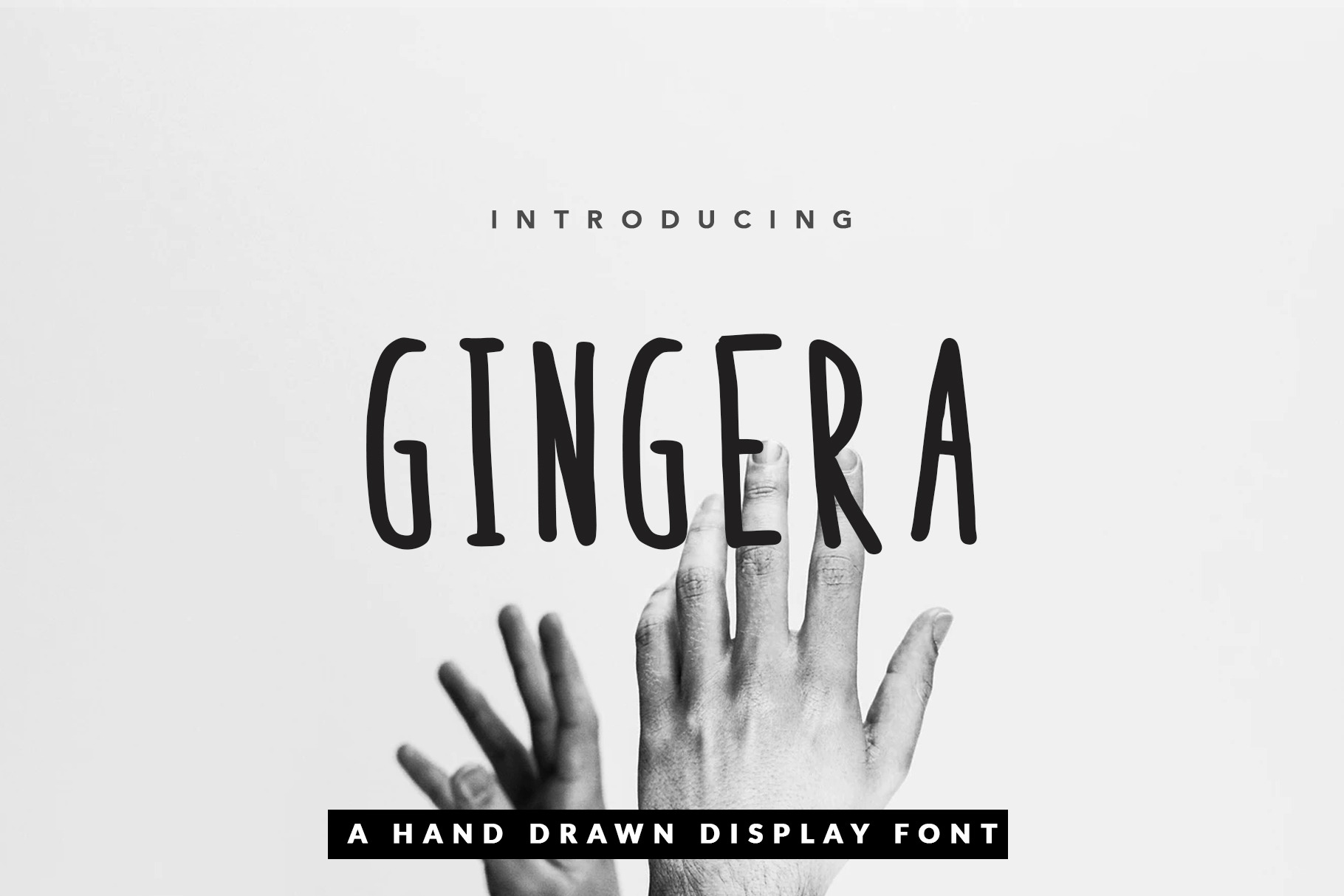
Gingera Font Suite for Book & Text
Sans serif hand-drawn display font called Gingera was designed for modern, classic, feminine, unique and other style also fit for Kids stories, books, poems and other long text